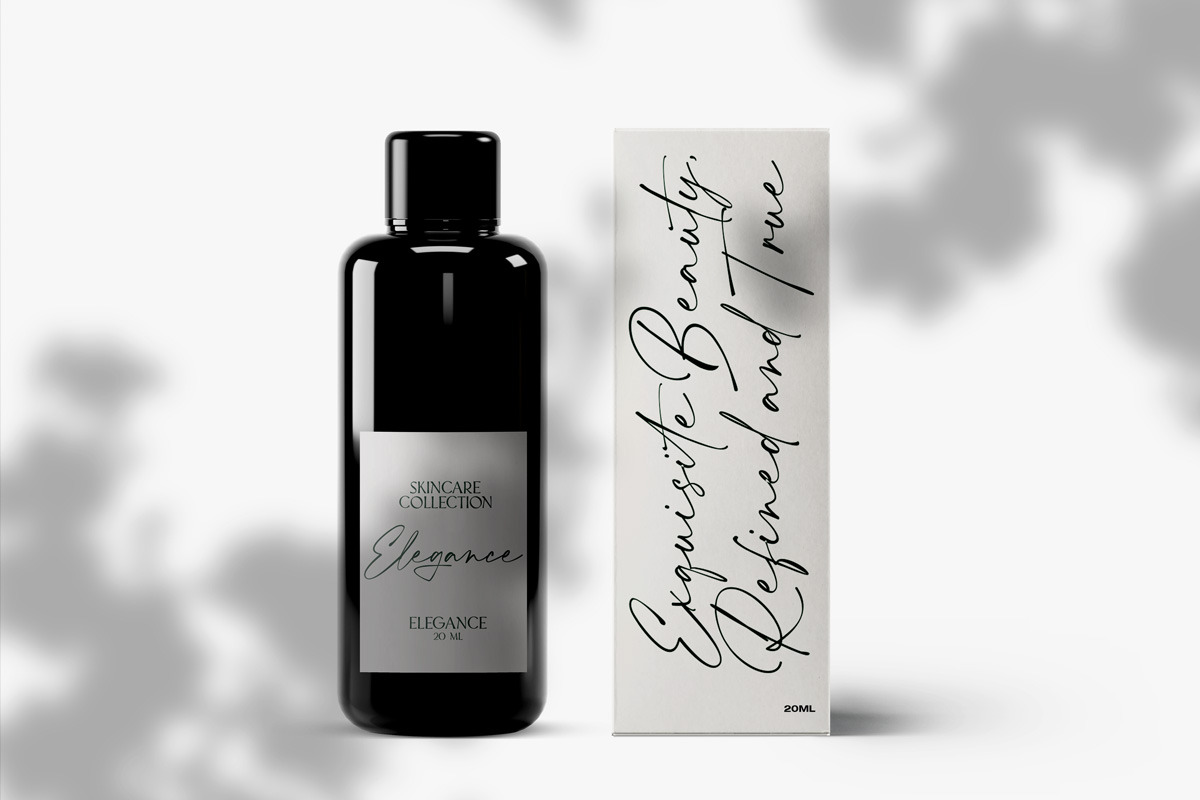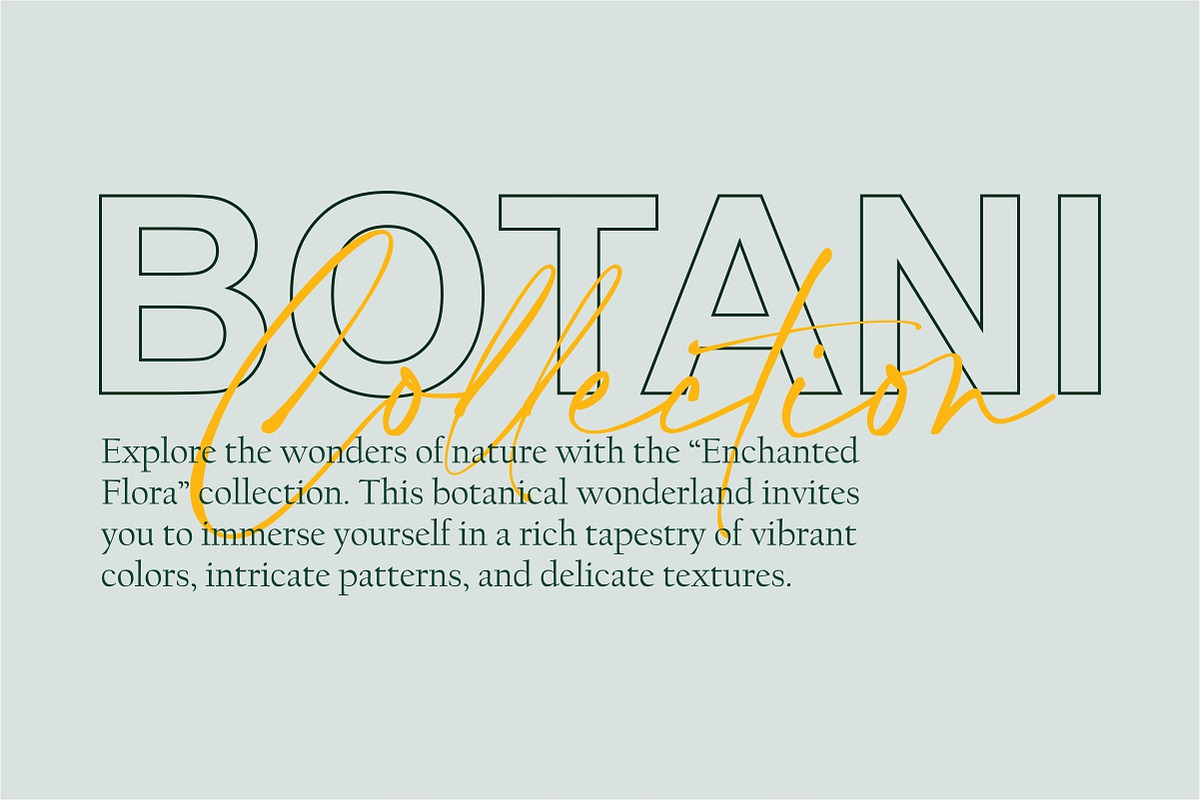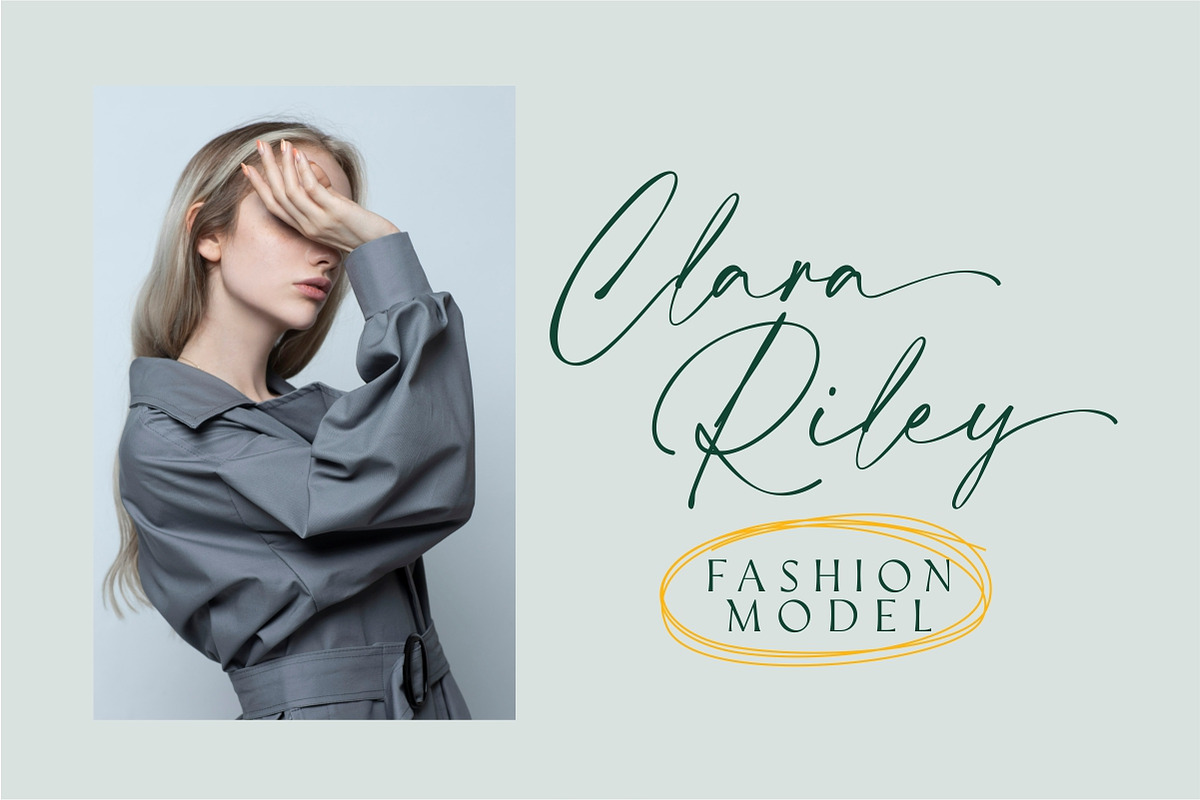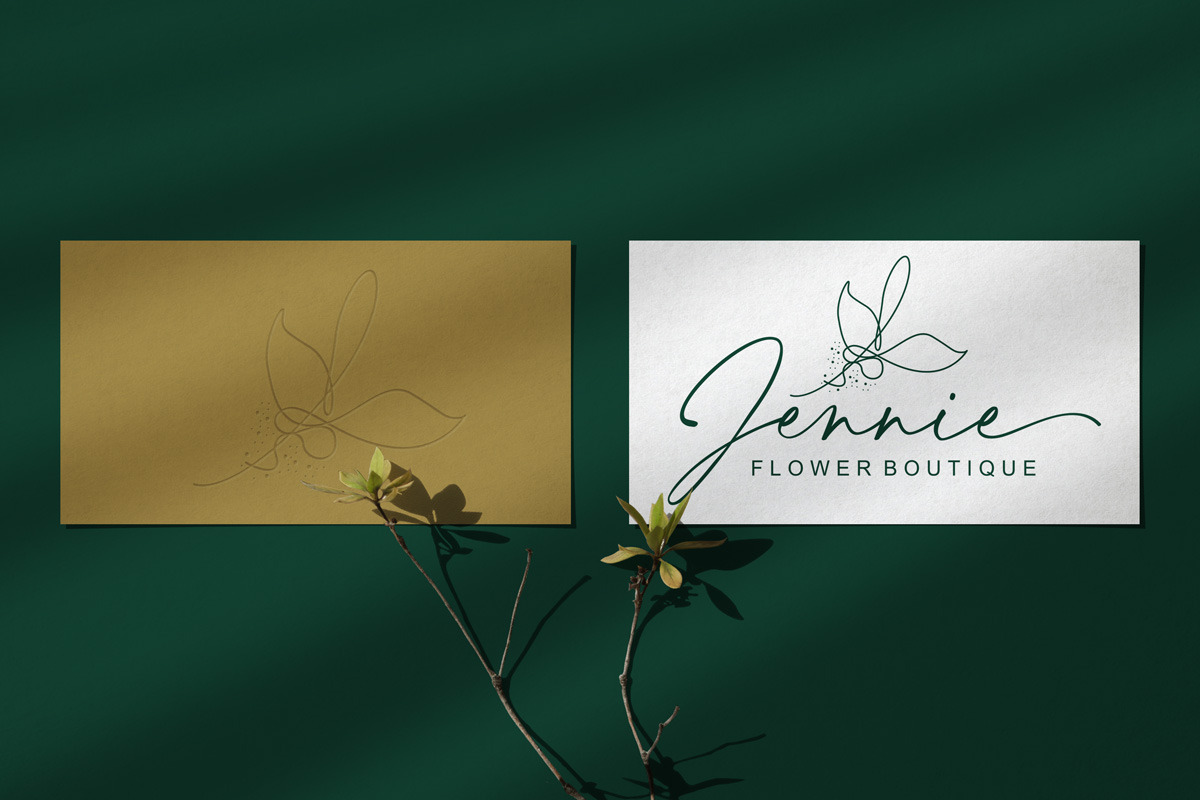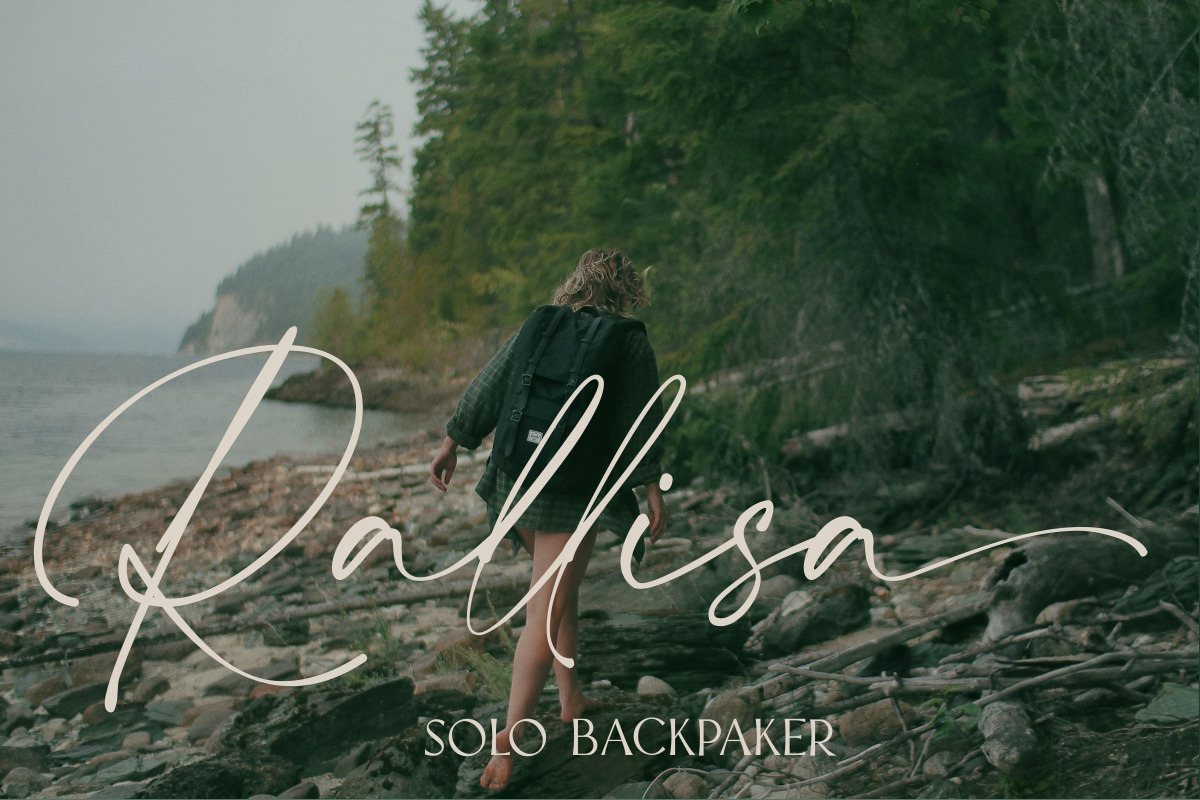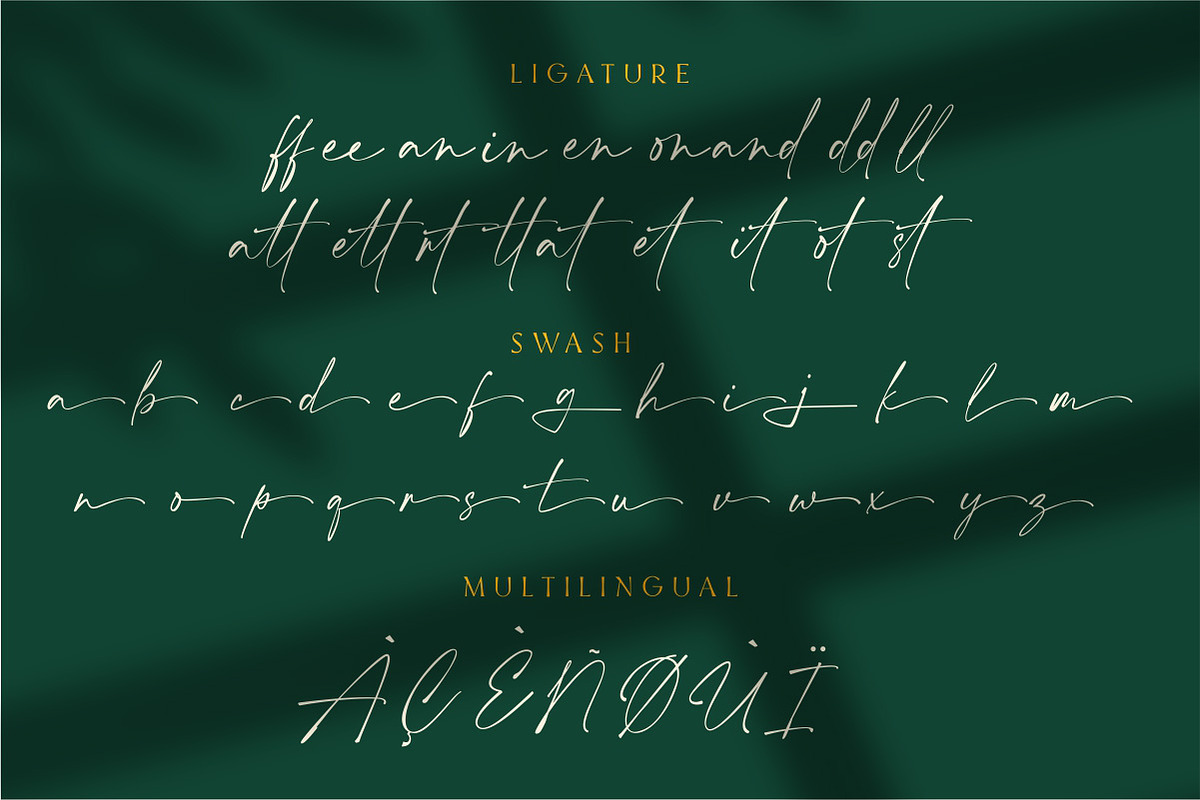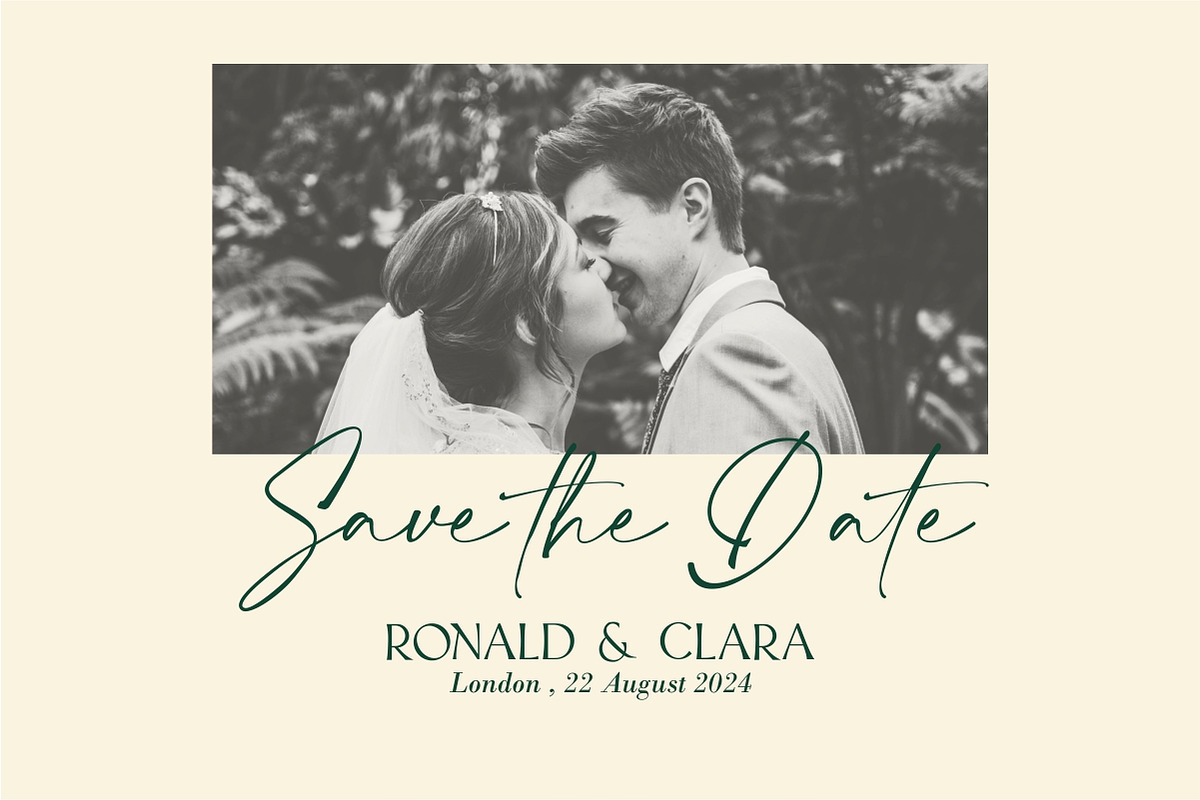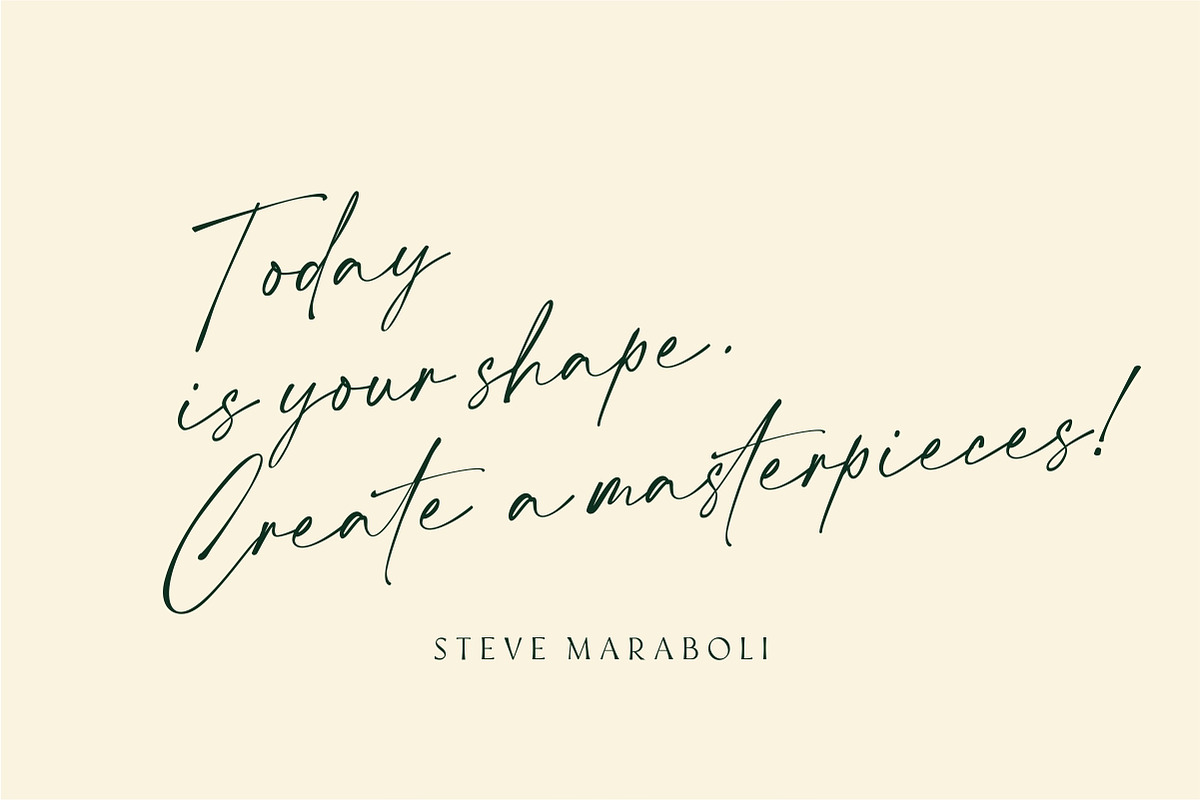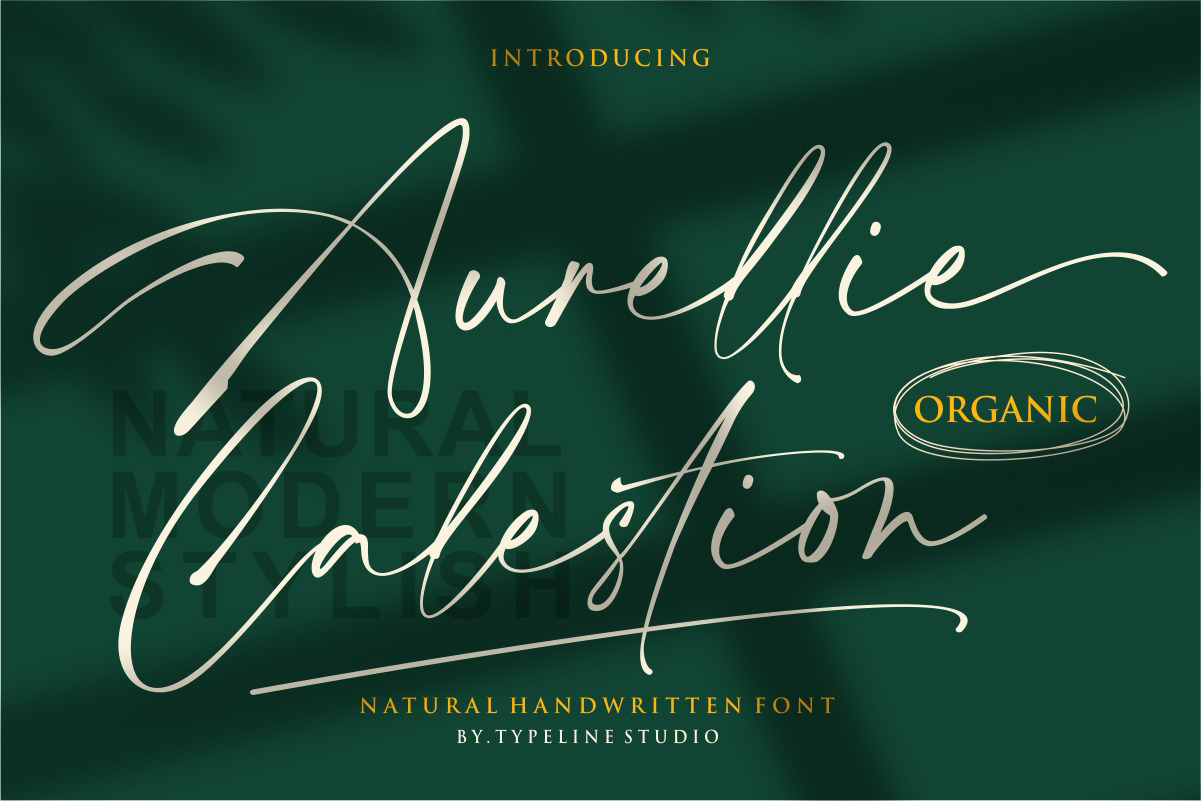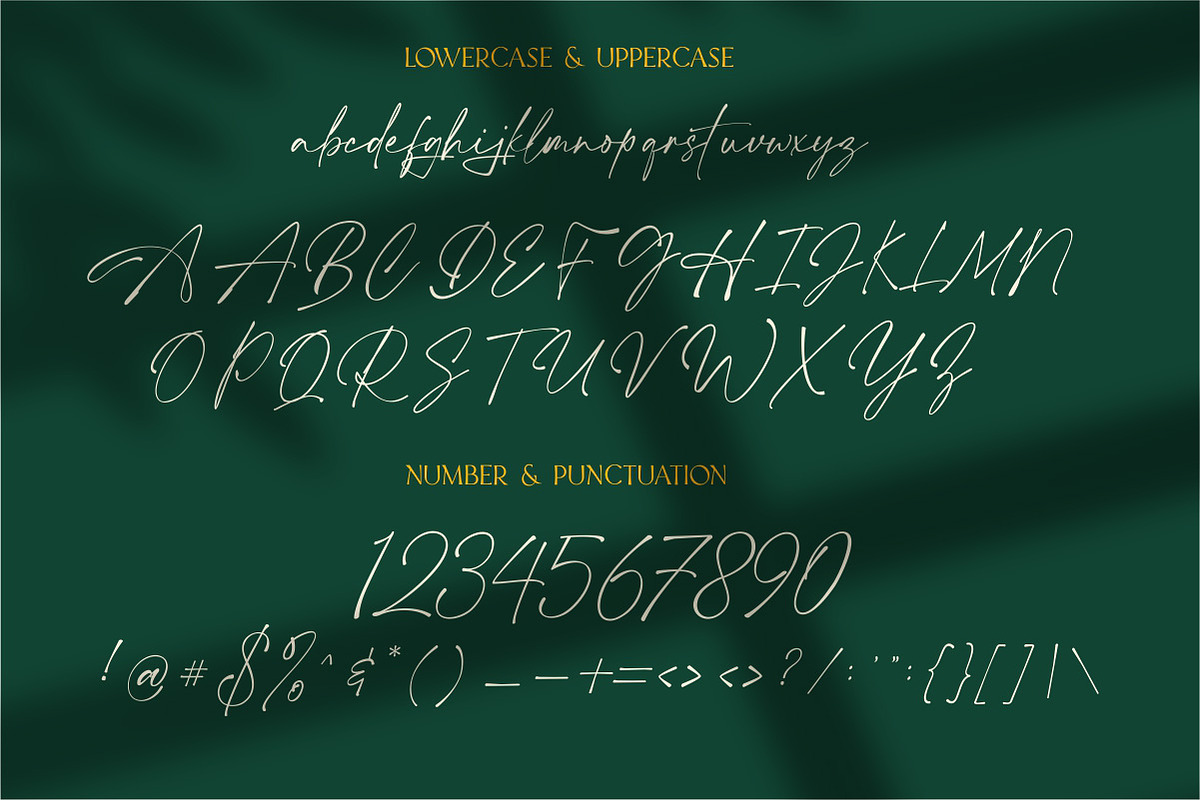
Aurellie Calestion Signature Font
Aurellie Calestion Handwritten Font - Elegant, Artistic, and Uniquely Personal
Elevate your creative projects with the Aurellie Calestion Handwritten Font – a stunning blend of elegance and artistic flair. Perfectly crafted to capture the essence of personal touch and sophistication, Aurellie Calestion brings an authentic handwritten feel to your designs.
Elegant Letterforms: With its graceful, flowing curves and distinctive character, Aurellie Calestion adds a touch of refinement and style to any project. Versatile Usage: Ideal for invitations, greeting cards, branding materials, social media graphics, and more. This font adapts seamlessly to various design needs, making it a versatile choice for both personal and professional projects. Authentic Handwritten Feel: Each letter is carefully designed to mimic the natural variations of handwritten text, ensuring a genuine, personal touch in every use. Multiple Weights and Styles: Includes a range of weights and stylistic alternates to provide flexibility and creativity in your design process. Easy to Use: Compatible with major design software, including Adobe Illustrator, Photoshop, and InDesign, allowing for effortless integration into your workflow. Why Choose Aurellie Calestion?
Whether you’re crafting a sophisticated wedding invitation, designing a chic logo, or enhancing your brand’s visual identity, Aurellie Calestion offers the perfect balance of elegance and readability. Its unique handwritten charm stands out in a crowded market, making your projects not only memorable but truly exceptional.